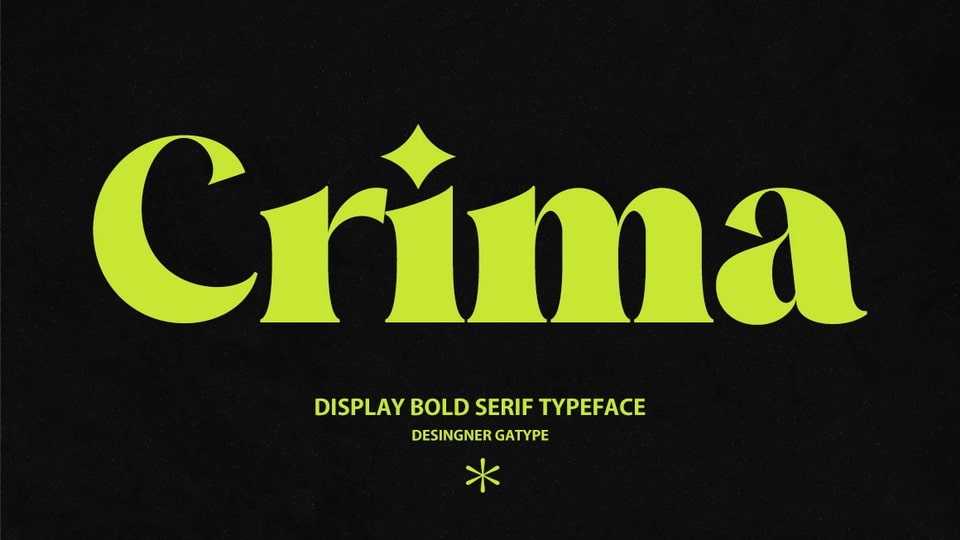
Download Crima font, a sophisticated display serif typeface with totality of elegance. Naturally drawn with pinpoint accuracy, Crima font perfectly represents the vintage and modern aesthetic.